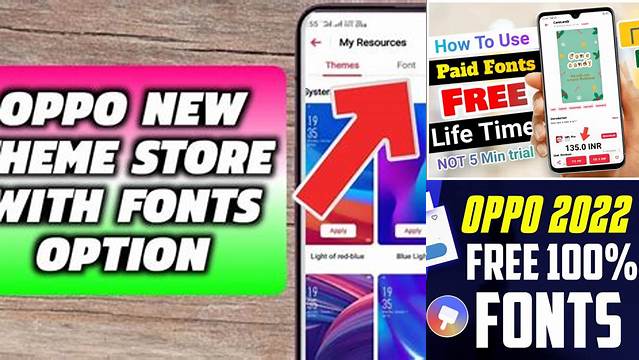
Free Fonts For Oppo: Customize Your Phone Style!
Free Fonts in Oppo Theme Store: A Guide to Stylish Customization
Hey guys! Ever felt like your Oppo phone could use a little sprucing up? Maybe the default font is just a tad… blah? Well, you're in luck! The Oppo Theme Store is a treasure trove of customization options, and guess what? There's a whole bunch of free fonts just waiting to be downloaded. This guide is all about how to snag those free fonts and transform your phone's look. We'll dive into the Oppo Theme Store, explore the best free font options, and give you some tips on how to install and manage your new fonts. Ready to make your Oppo phone uniquely you?
Exploring Popular and Stylish Free Font Options
Alright, let's talk about some popular and stylish free font options that you might find in the Oppo Theme Store. Keep in mind that the availability of specific fonts can vary over time, but there are always cool options to discover. Some fonts are classics for a reason, providing readability and a touch of elegance. Others offer a bold, modern vibe. And some, well, they're just plain fun! You might find fonts like Roboto, which is known for its clean lines and readability, making it a great choice for everyday use. Then there's Open Sans, another popular sans-serif font that's known for its versatility and friendly appearance. Both of these fonts are great choices if you want something that's easy on the eyes and won’t distract from your content.
For those who want something a bit more unique, you might come across fonts like Montserrat, which has a modern and geometric feel. Or maybe you’ll find something with a more handwritten style, which can add a personal touch to your phone. Remember to check the preview of each font to see how it looks. Oppo Theme Store usually lets you preview the font on a sample text, so you can see how it will appear in your messaging apps, on your home screen, and in other areas of your phone. Take the time to play around with different fonts, because this will help you to find one that you love. Don’t be afraid to experiment with different styles, and don’t settle for the first font you find. Also, check out the font's character set. Does it support the special characters and symbols you need? This is particularly important if you use a lot of emojis or symbols in your communication. You want to make sure the font displays these characters correctly. You might also find fonts that are designed to mimic different handwriting styles, offering a personalized feel. Keep an open mind and look beyond the familiar fonts, because you never know what hidden gems you might find. The Oppo Theme Store is constantly updated, so new free fonts are being added all the time. So, keep checking back regularly to see what's new and to stay ahead of the curve. The best way to find the perfect font is to be open to experimentation, be adventurous, and enjoy the process.
Troubleshooting Common Font Issues in Oppo Theme Store
Sometimes, even when you follow all the steps, things don’t go perfectly. Don’t worry, guys! It’s pretty normal to encounter some common font issues when using the Oppo Theme Store. Let's go through some of the problems that you might face and how to solve them. One of the most common issues is that the font doesn't seem to be applying correctly. This can happen for a few reasons. First, double-check that you've selected the font in your phone's settings. Go to “Display” or “Personalization” settings and make sure the new font is selected. Also, try restarting your phone. Sometimes, a simple restart is all it takes to get the font to apply correctly.
Another common issue is that the font might not be displaying all the characters properly. This can happen if the font doesn't support the language or the characters you're using. Make sure the font supports your language. If you're using special characters or emojis, check if the font supports those as well. You might also run into issues with font compatibility. Not all fonts work perfectly with all Oppo phones, or with all versions of the ColorOS operating system. Before you download a font, it's a good idea to check if it's compatible with your phone model and operating system version. You can usually find this information in the font's description or on the Oppo Theme Store. If you're having trouble with a specific font, try downloading a different font to see if that resolves the issue. The problem might be with the particular font you're trying to use, and switching to a different font might fix the problem.
If you're still having problems, try clearing the cache and data for the Oppo Theme Store app. Go to your phone's settings, find the “Apps” section, locate the “Theme Store” app, and then clear the cache and data. This can sometimes fix issues caused by corrupted data. Always ensure that your Oppo device is running the latest software updates. System updates often include bug fixes and improvements that can help with font compatibility and other issues. Finally, if you've tried all of these steps and you're still having problems, you can contact Oppo customer support. They can provide further assistance and help you troubleshoot the issue. They're usually very helpful in resolving any issues you might have. Troubleshooting can sometimes feel like a puzzle, but with a little patience and the right steps, you should be able to resolve most of the font issues you encounter. Remember, most issues are often fixable, and by following these steps, you can get your fonts working and enjoy your customized Oppo phone.
Conclusion: Embrace the Freedom of Free Fonts in the Oppo Theme Store
Alright, guys, we've covered a lot of ground! From navigating the Oppo Theme Store to exploring free font options, to troubleshooting and maximizing your customization experience. I hope you now feel confident and ready to customize your Oppo phone with some cool, free fonts. Remember, the Oppo Theme Store is a fantastic resource for personalizing your device. With so many free fonts to choose from, you can truly make your phone your own. Don't be afraid to experiment, try out different styles, and find the fonts that best reflect your personality. The most important thing is to have fun and enjoy the process of making your phone unique. So, go forth, explore the Oppo Theme Store, download some free fonts, and transform your phone into a stylish reflection of you. Happy font hunting!